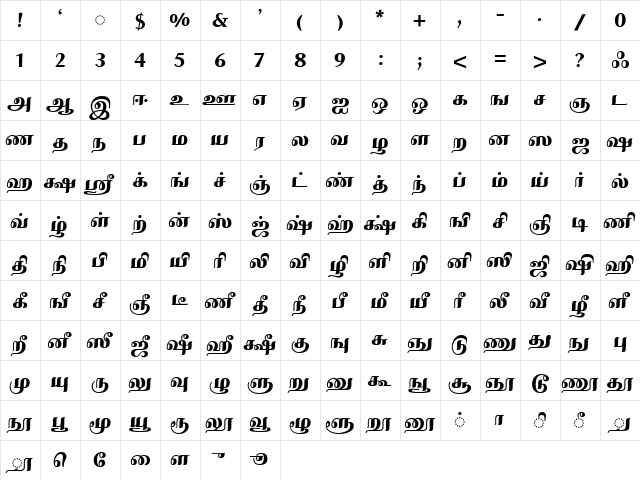
IdsTamil_TG_4_ Bold Font Preview
IdsTamil_TG_4_ Bold
Design Context for IdsTamil_TG_4_ Typeface
IdsTamil_TG_4_ takes a measured approach to typography — its balanced proportions and neutral character make it a reliable workhorse for both digital and print work. Its bold stroke weight gives it real presence on the page.